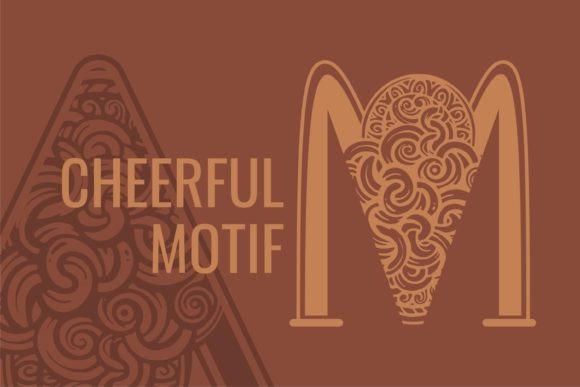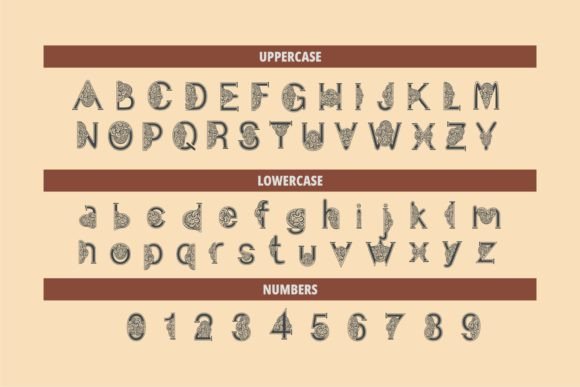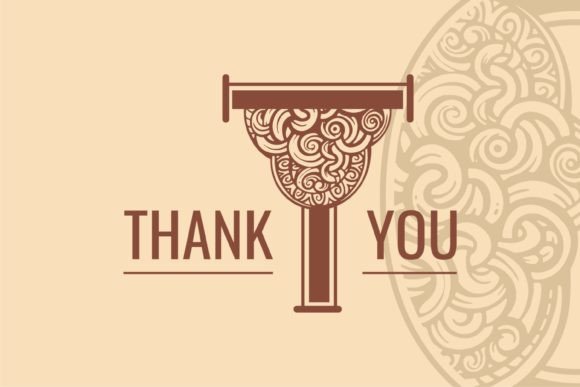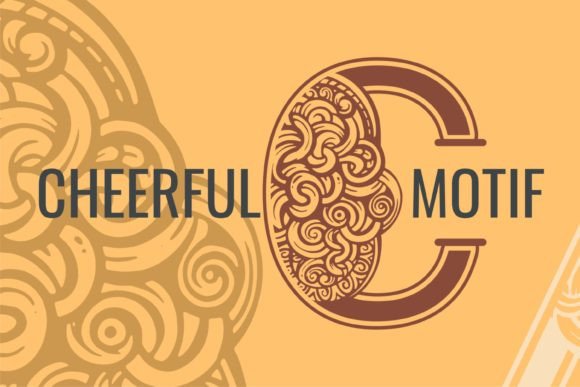
Introducing the Cheerful Motif Font: Elevate Your Designs with Whimsy and Charm
Are you a designer or crafter looking for a font that can add a touch of sweetness and playfulness to your creations? Look no further than the Cheerful Motif Font! This delightful decorative font features lovely motif ornaments that are sure to bring a smile to anyone’s face. In this article, we’ll explore the features and benefits of the Cheerful Motif Font, and show you how to incorporate it into your designs.
What is the Cheerful Motif Font?
The Cheerful Motif Font is a unique and charming decorative font that is perfect for adding a personal touch to your designs. With its intricate motif ornaments, this font is sure to stand out from the crowd. Whether you’re creating wedding invitations, social media posts, or greeting cards, the Cheerful Motif Font is the perfect choice.
Key Features of the Cheerful Motif Font
• Sweet and Playful Design: The Cheerful Motif Font features a sweet and playful design that is sure to delight. Its intricate motif ornaments add a touch of whimsy and charm to any design.
• Decorative Motif Ornaments: The font features beautiful decorative motif ornaments that can be used to add a personal touch to your designs.
• Perfect for Wedding Invitations and Stationery: The Cheerful Motif Font is perfect for creating beautiful wedding invitations, stationery, and other paper crafts.
• Great for Social Media Posts and Greeting Cards: The font is also great for creating eye-catching social media posts and cute greeting cards.
Benefits of Using the Cheerful Motif Font
So why should you choose the Cheerful Motif Font for your designs? Here are just a few benefits:
• Adds a Personal Touch: The Cheerful Motif Font adds a personal touch to your designs, making them stand out from the crowd.
• Versatile: The Cheerful Motif Font can be used for a wide range of design projects, from wedding invitations to social media posts.
How to Use the Cheerful Motif Font in Your Designs
Using the Cheerful Motif Font in your designs is easy! Here are a few tips:
• Pair with Other Fonts: Pair the Cheerful Motif Font with other fonts to create a unique and eye-catching design.
• Use for Headings and Titles: Use the font for headings and titles to add a touch of whimsy and charm to your designs.
Examples of the Cheerful Motif Font in Action
Here are a few examples of the Cheerful Motif Font in action:
• Wedding Invitations: Use the Cheerful Motif Font to create beautiful and unique wedding invitations that will set the tone for the big day.
• Social Media Posts: Use the font to create eye-catching social media posts that will grab the attention of your followers.
• Greeting Cards: Use the Cheerful Motif Font to create cute and personalized greeting cards for any occasion.
In conclusion, the Cheerful Motif Font is a sweet and playful decorative font that is perfect for adding a personal touch to your designs. With its intricate motif ornaments and easy-to-use design, this font is sure to become a favorite among designers and crafters. Whether you’re creating wedding invitations, social media posts, or greeting cards, the Cheerful Motif Font is the perfect choice. So why wait? Download the Cheerful Motif Font today and start adding a touch of whimsy and charm to your designs!